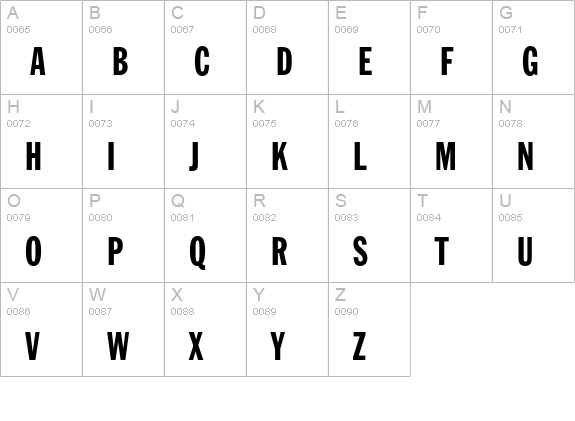
18 Franklin Gothic Extra Condensed 46102 Font Details
18 Franklin Gothic Extra Condensed 46102 is a distinctive, condensed-width variant in the 18 typeface family \xE2\x80\x94 well suited to design and typography projects.
The 18 Franklin Gothic Extra Condensed 46102 font is a sleek and modern typeface that exudes sophistication and professionalism. With its condensed style, it is perfect for creating a clean and streamlined look in your designs. This font is ideal for headlines, titles, logos, and other display purposes where you want to make a bold statement. The 18 Franklin Gothic Extra Condensed 46102 font is not only stylish and versatile but also free to download at FontsMarket.com. Take advantage of this amazing offer to enhance your projects with this premium font without any cost. Don't miss out on the opportunity to elevate your designs with the elegance and flair of the 18 Franklin Gothic Extra Condensed 46102 font. Download it now and see the difference it can make in your creative work.